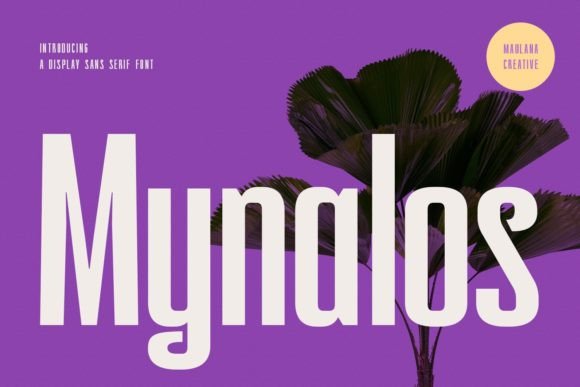
Ignite your minimalist design vision with Mynalos, the modern sans serif font that's taking the creative world by storm. Crafted with precision and a hint of flair, Mynalos embodies the essence of simplicity, making it the perfect choice for designers seeking a clean, contemporary aesthetic.
Step into a realm of understated elegance where Mynalos' crisp lines and geometric shapes create a striking visual impact. Its versatile nature adapts seamlessly to a myriad of design projects, from sleek book covers and sophisticated magazines to eye-catching social media posts and delicate invitations. Let Mynalos elevate your designs with its timeless charm and effortless grace.
Unleash your creativity and explore the endless possibilities of Mynalos. Immerse yourself in a world where minimalism meets modernity, where every letterform is meticulously crafted to convey a sense of chic sophistication. Its distinct contemporary character adds a touch of personality to your designs, ensuring they stand out from the crowd.
Embrace the power of simplicity and let Mynalos guide you towards design brilliance. Whether you're creating captivating book covers, crafting elegant magazines, or designing stunning social media posts, Mynalos will effortlessly elevate your work to new heights. Experience the joy of creating with a font that truly understands the essence of minimalist design.